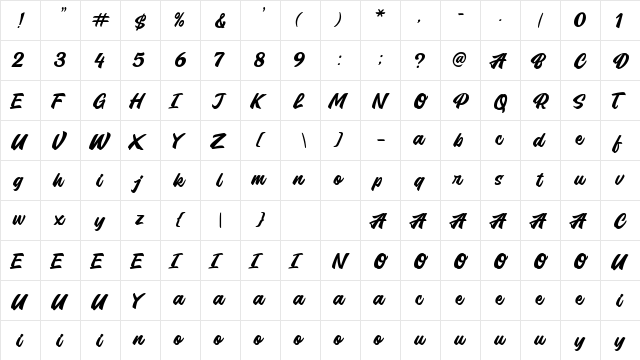
Bonesly PersonalUse Regular
| Foundry | activitype foundry |
| Designer | Iqbal Hidayanto, Murti Sanjaya |
Design Context for Bonesly PersonalUse Typeface
Bonesly PersonalUse is a composed and adaptable typeface that performs quietly and consistently across a wide range of design contexts.